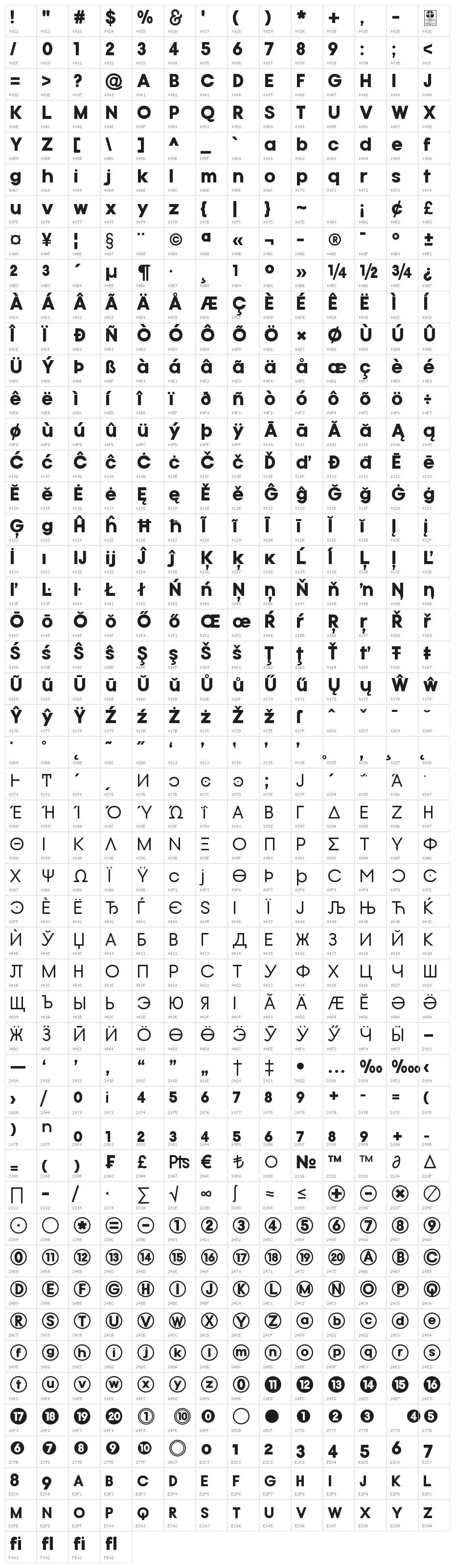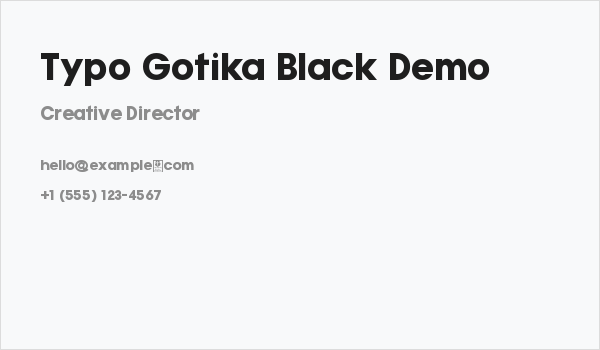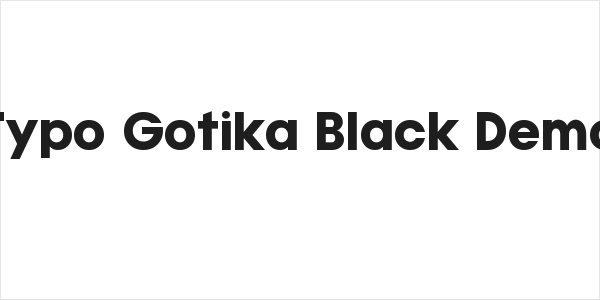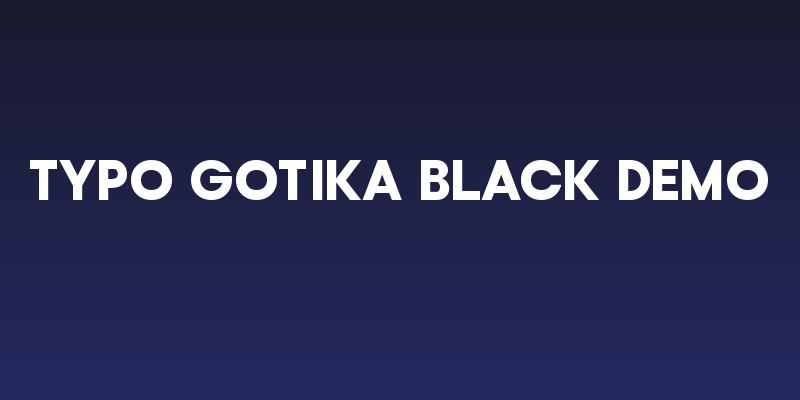
Typo Gotika Black Demo Font
Typo Gotika Black Demo Description
This font features bold, geometric letterforms with a modern and clean aesthetic. The characters are uniform in width, contributing to a balanced and cohesive appearance. The uppercase and lowercase letters maintain a consistent style, with rounded edges and a slightly condensed form. The numerals and special characters are designed to match the boldness and simplicity of the alphabet, ensuring a seamless integration across different text elements. This font is highly legible and versatile, making it suitable for various design applications.
| Proposed Projects | Ideal for branding, headlines, posters, and digital media where a strong visual impact is desired. |